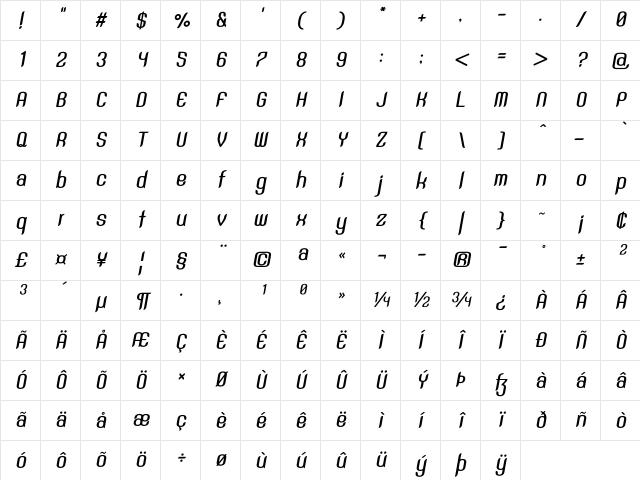
SNT Anouvong Bold Italic
Foundry: Sengkeo Vangxiengvue
Designer: Sengkeo Vangxiengvue
SNT Anouvong Family
SNT Anouvong Bold Italic
Design Context for SNT Anouvong
SNT Anouvong is a composed and adaptable typeface that performs quietly and consistently across a wide range of design contexts. The slanted form adds forward momentum and visual energy. Its bold stroke weight gives it real presence on the page.
Pro Tip: Use SNT Anouvong for emphasis, pull quotes, and subheadings where its slanted energy can add rhythm to the layout.
Who designed the SNT Anouvong Bold Italic font?
This font was published by Sengkeo Vangxiengvue. Check the technical specs section for copyright and designer details.